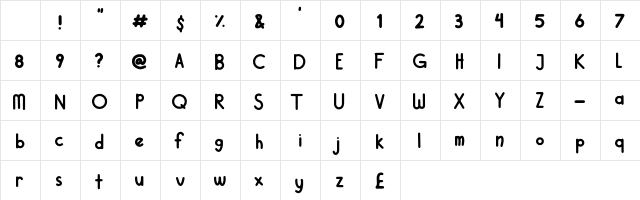
Complete Little Orion - Personal Use Regular glyph index. Displaying only characters natively supported by Little Orion - Personal Use Regular font.
Little Orion - Personal Use is a composed and adaptable typeface that performs quietly and consistently across a wide range of design contexts.